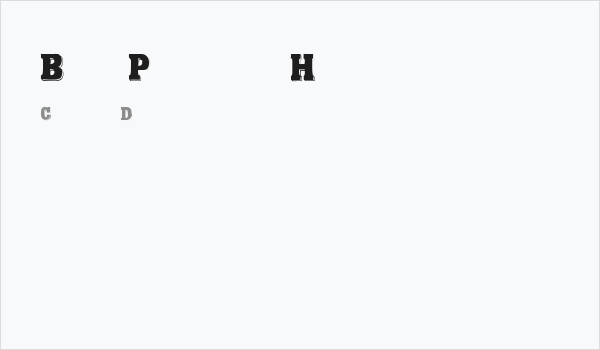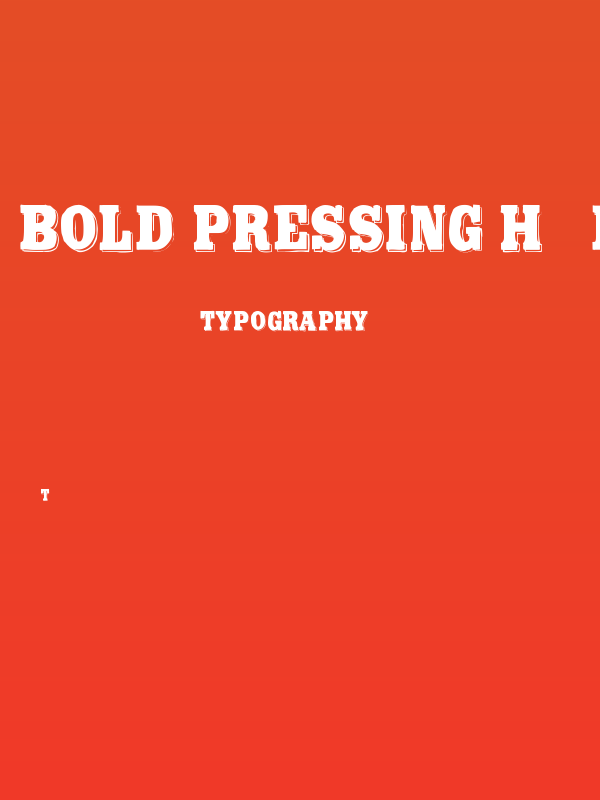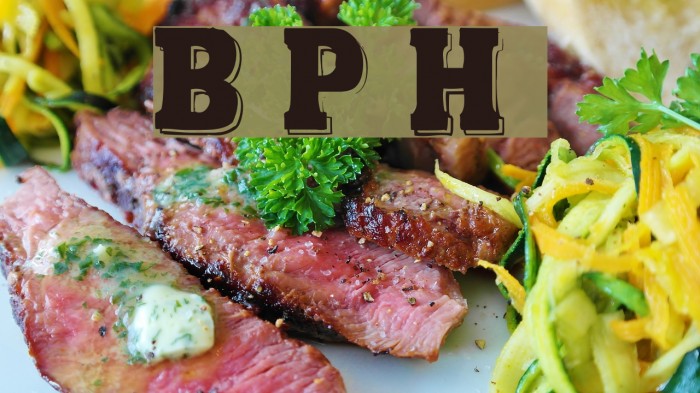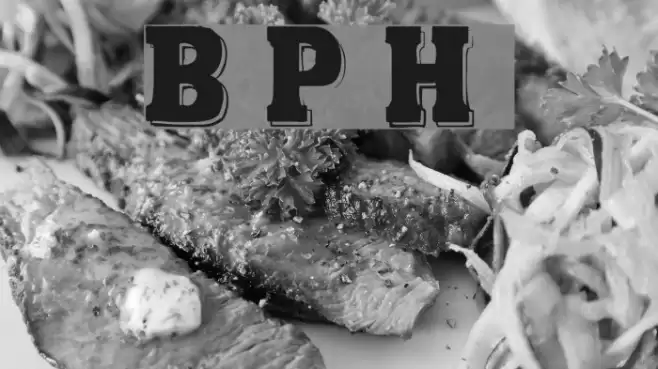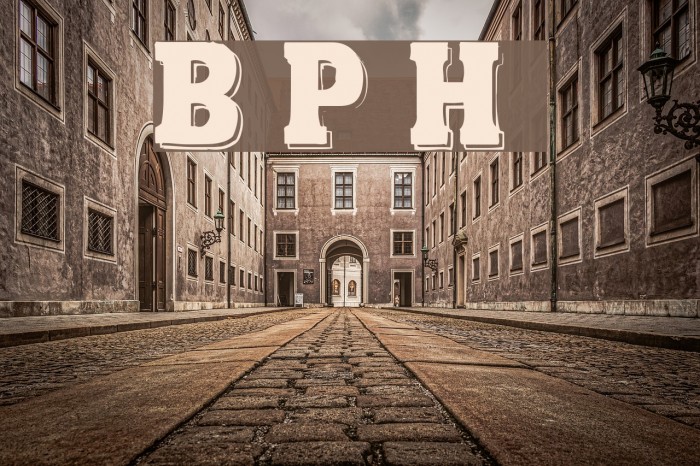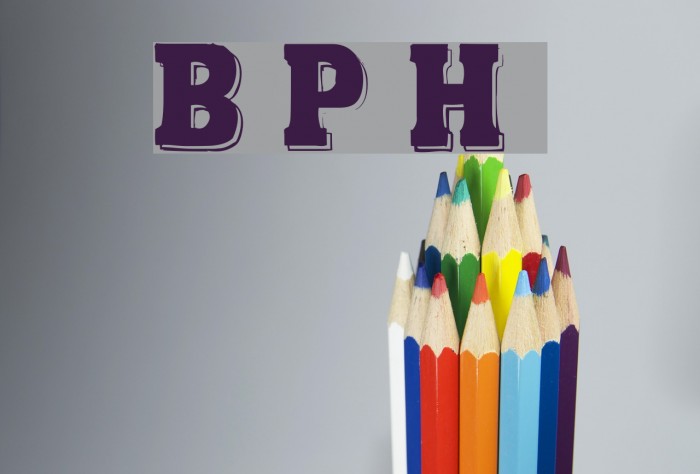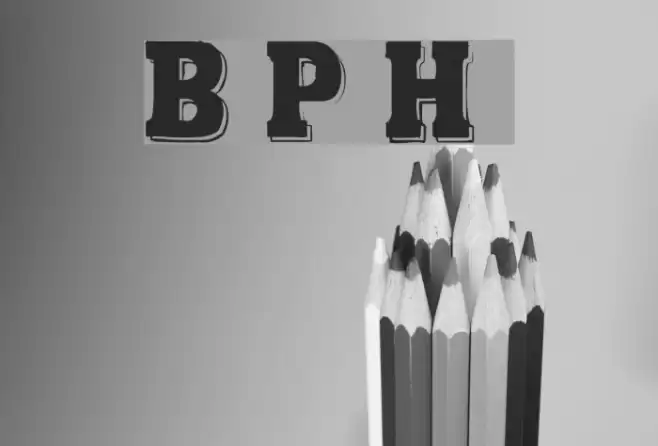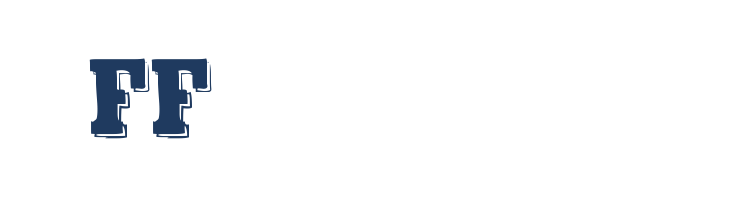
Bold Pressing H1 demo Font
Bold Pressing H1 demo Description
This font features a bold, impactful style with thick, heavy strokes and a strong presence. The characters are uppercase, with a distinct three-dimensional effect created by a shadow or outline that adds depth. The design is reminiscent of vintage poster fonts, often used in Western or circus-themed designs. Each letter is well-defined, with sharp edges and a consistent weight throughout. The font's boldness makes it ideal for grabbing attention and making a statement.
| Overall Style | Vintage |
| Proposed Projects | Ideal for posters, signage, branding, and any project requiring a vintage or Western theme. |